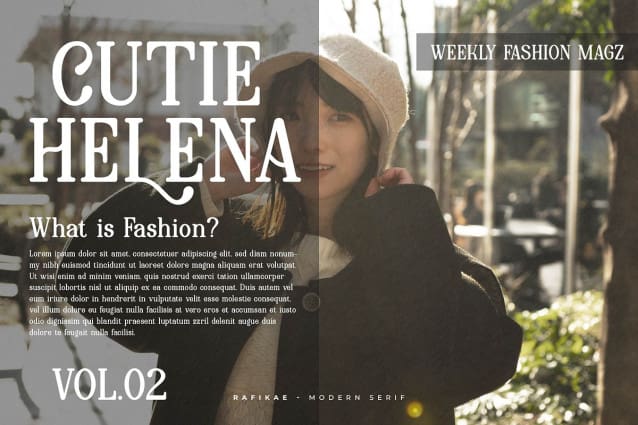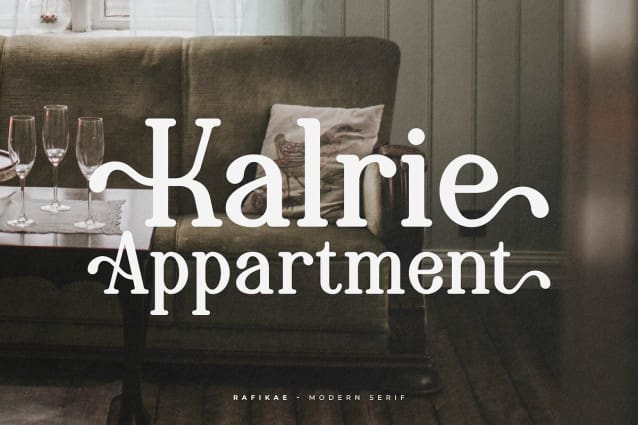
Rafikae Font
Rafikae Font | Modern Serif Font, from Denustudios, suitable for any projects such as: logos, branding projects, homeware designs, product packaging, mugs, quotes, posters, shopping bags, t-shirts, book covers, name card, invitation cards, greeting cards, label, photography, watermark, special events, and all your other lovely projects that need a Modern Serif Font taste.